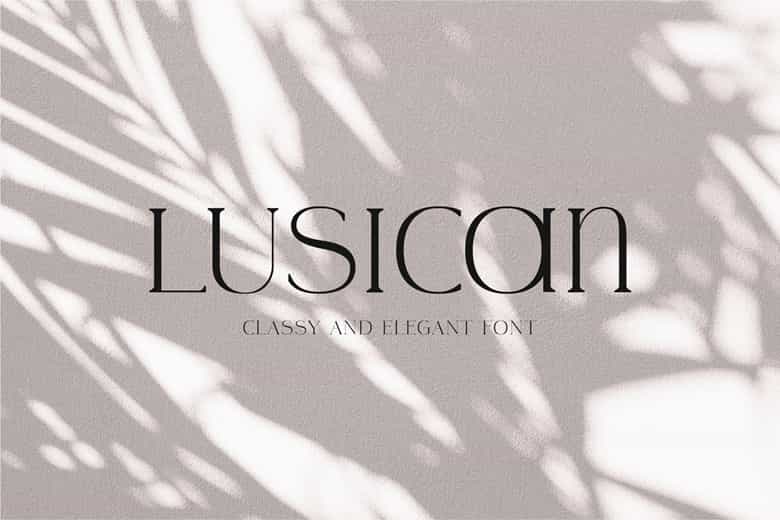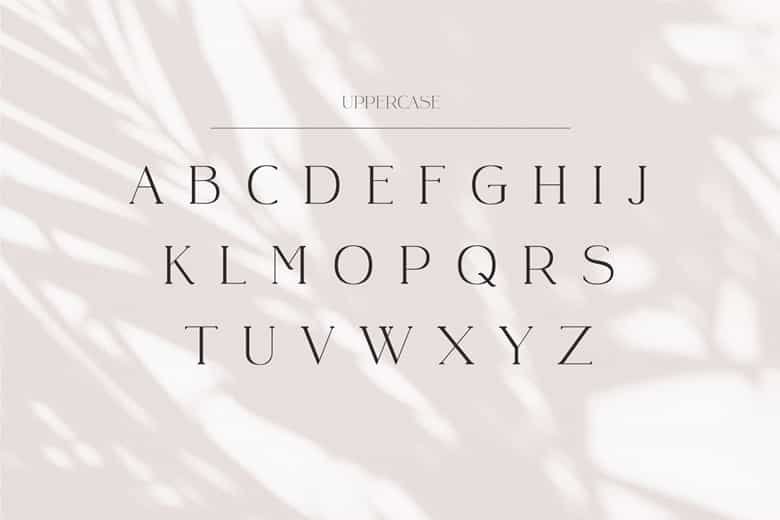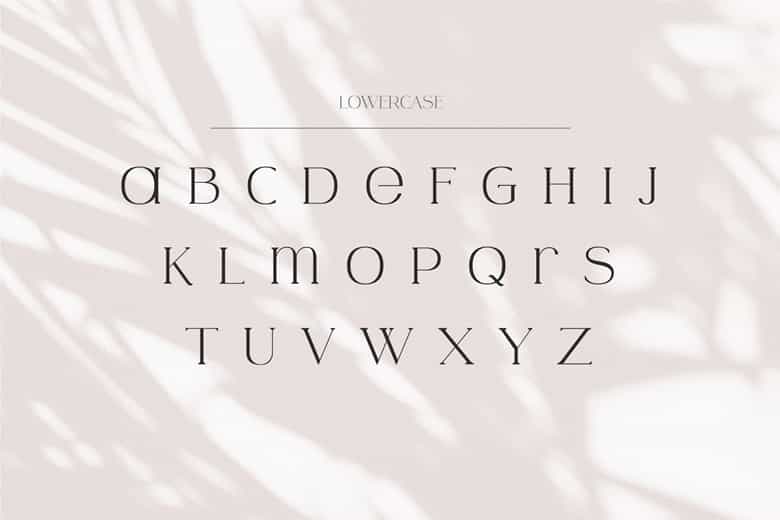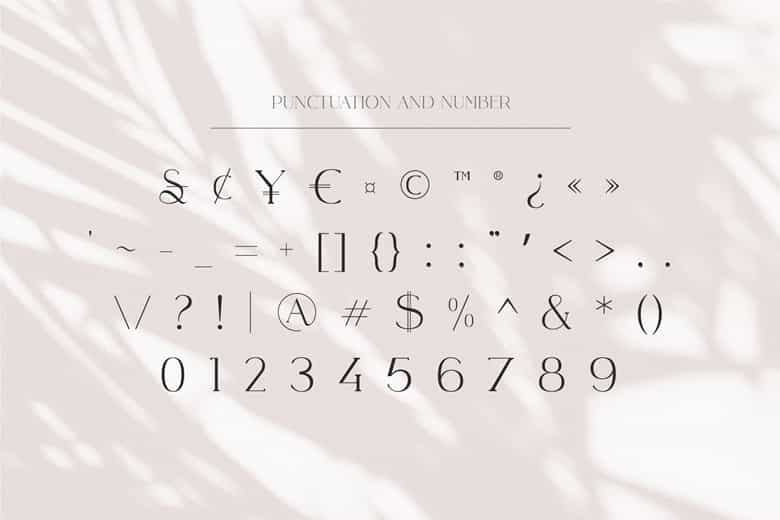
Lusican is a new reserved serif typeface with great readability in good newspapers or magazines; it is minimalistic, elegant, and charming! It is best suitable for applying a company logo, wedding inspirations, invitations, visiting cards and many more programs that require an effective typography.